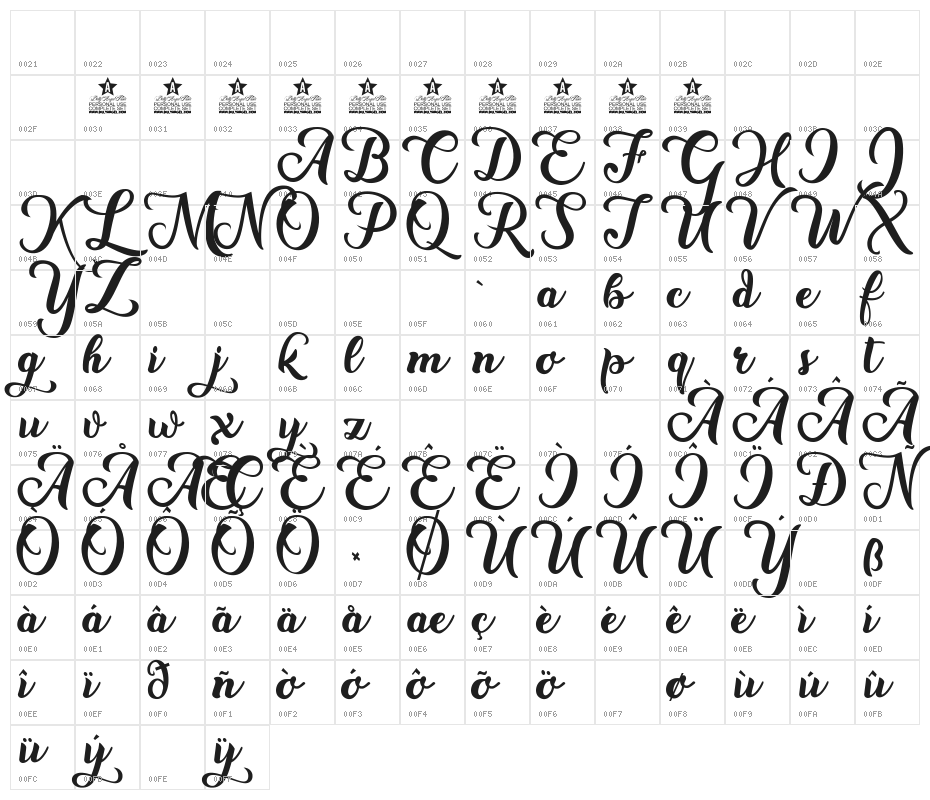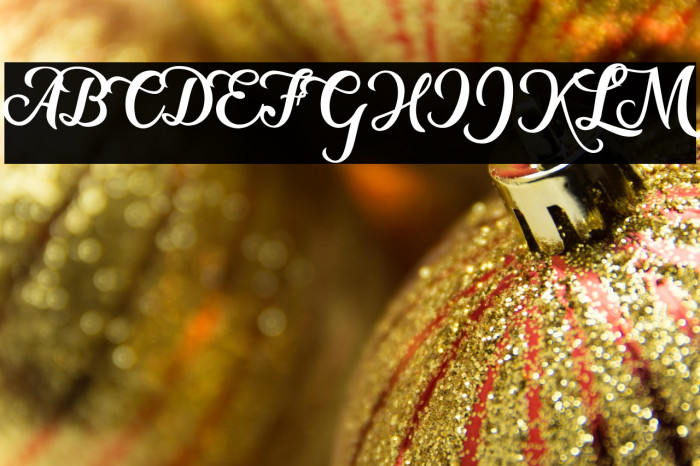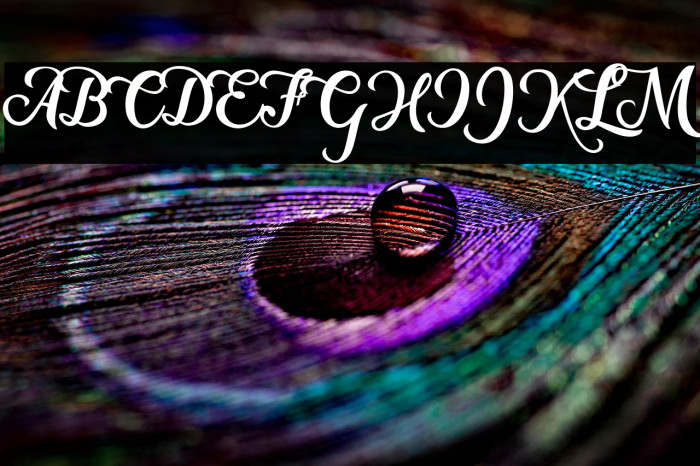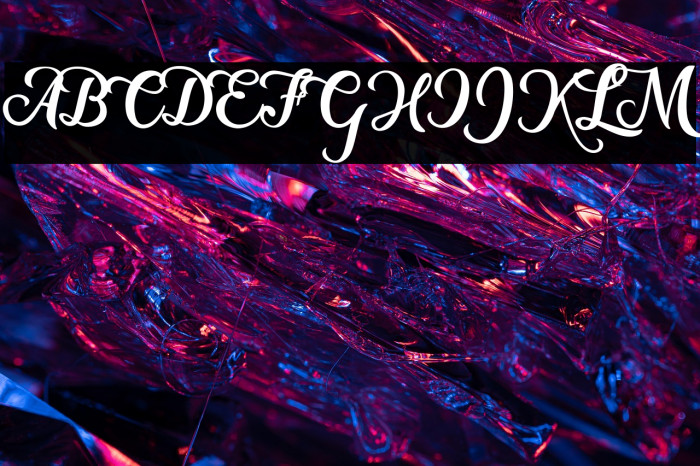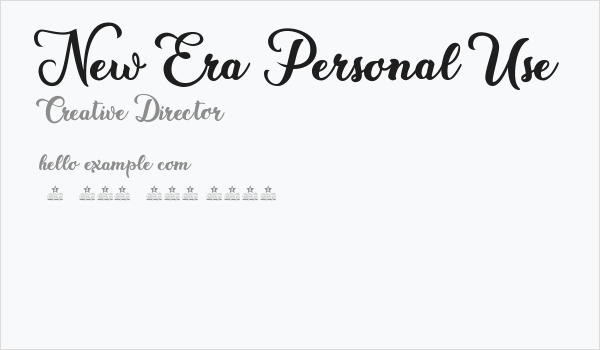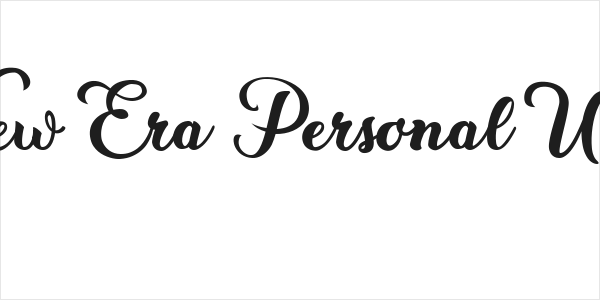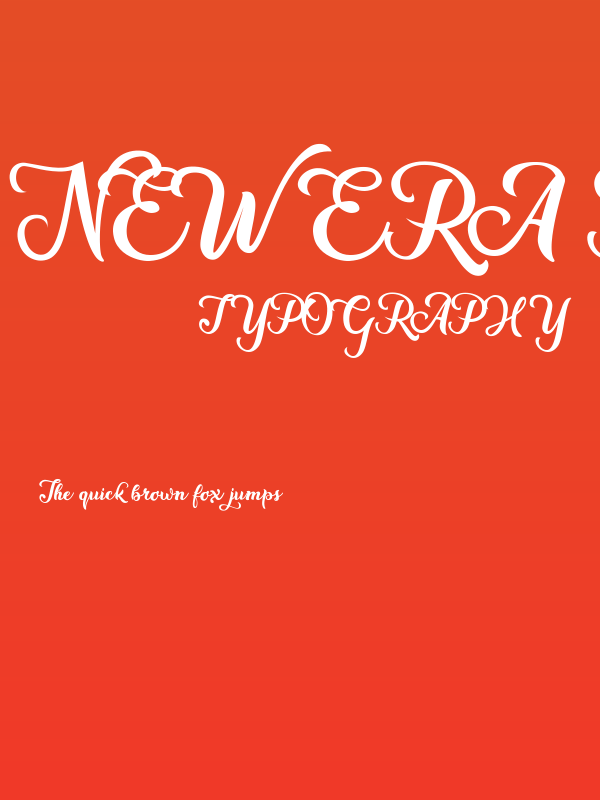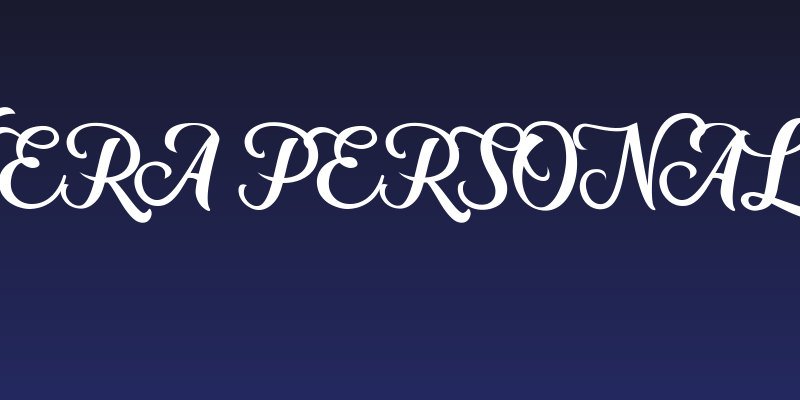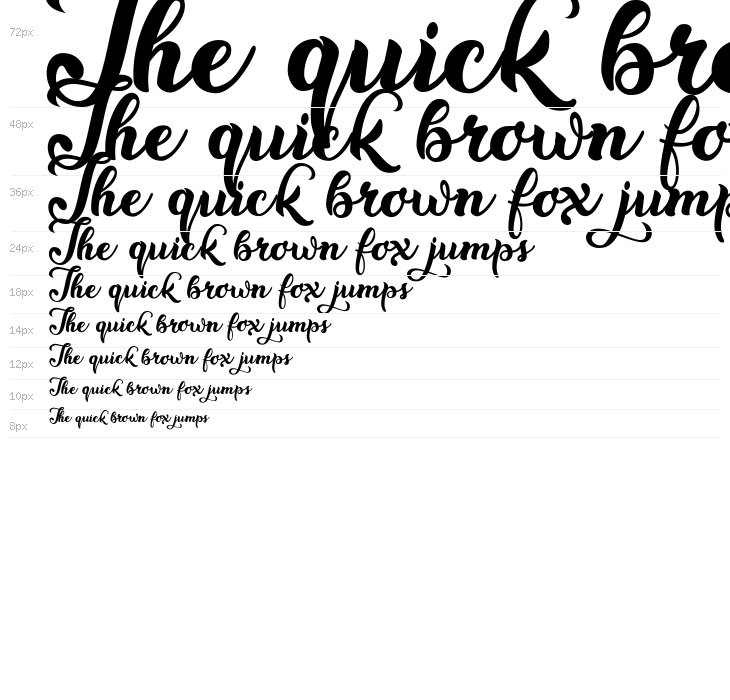
New Era Personal Use Font
New Era Personal Use Description
This font features an elegant and flowing script style, characterized by its smooth, cursive letterforms that exude a sense of sophistication and grace. The uppercase letters are intricately designed with flourishes and loops, giving them a decorative and ornate appearance. The lowercase letters maintain a consistent flow, with some characters extending below the baseline, adding to the font's dynamic and fluid nature. The numerals and special characters are crafted to match the overall aesthetic, ensuring a cohesive look across all text. This font is ideal for projects that require a touch of elegance and refinement.